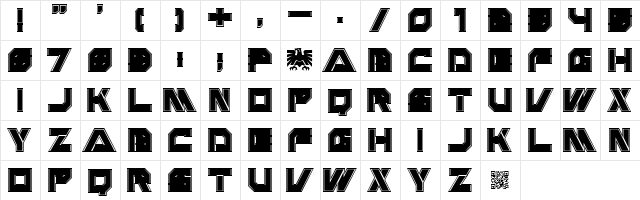
USPF Liberty Inline
Design Context for USPF Liberty Typeface
USPF Liberty is built around its visual character rather than neutral utility — its distinctive forms are designed to make an impression at display sizes.